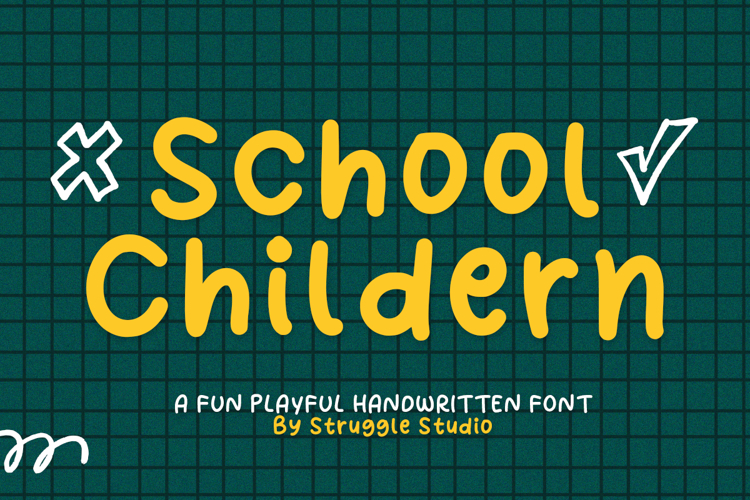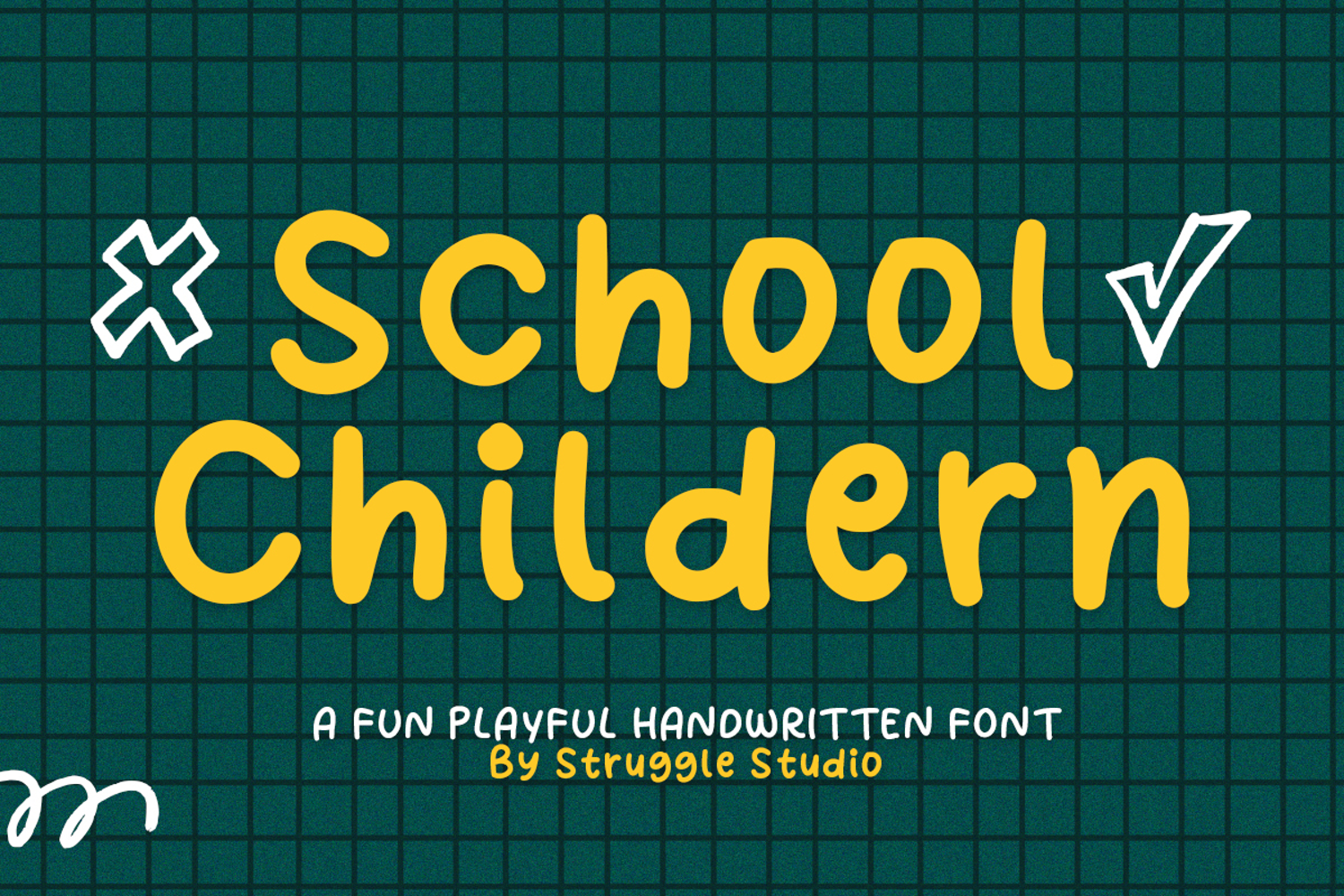
Inject a dose of joy and creativity into your projects with School Childern! Designed by Struggle Studio, this font perfectly captures the honest, effortless, and energetic essence of a child’s handwriting.
With its rounded shapes and organic lines, School Childern provides a warm and friendly atmosphere. It is the ideal choice for any design that requires a "human touch" while maintaining a professional and clean look.